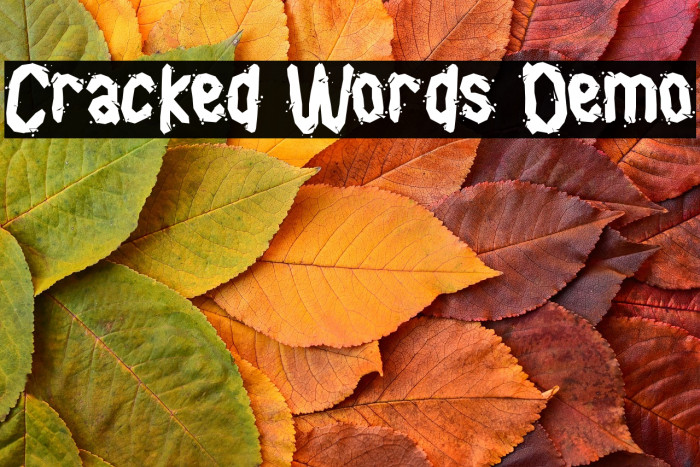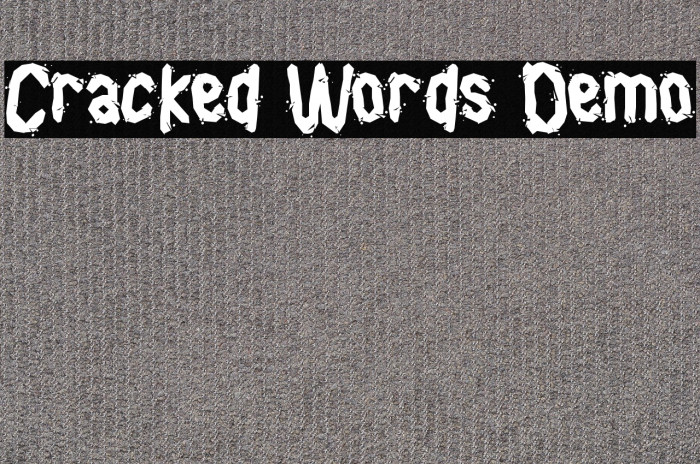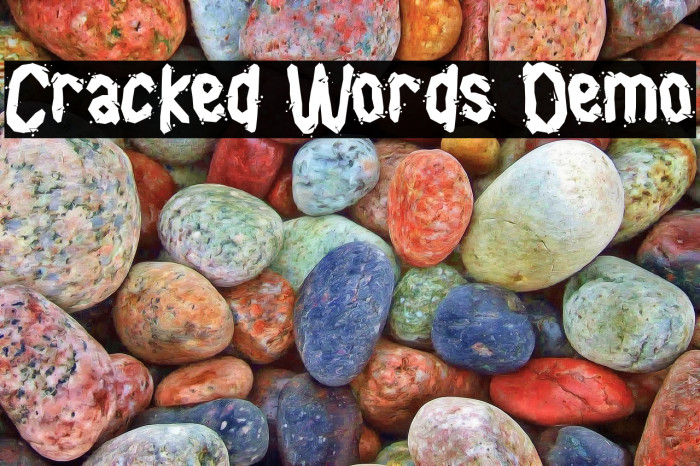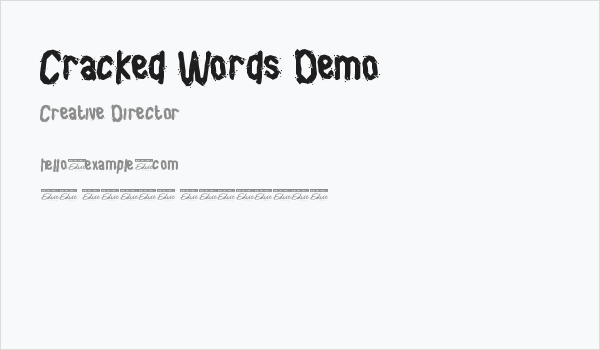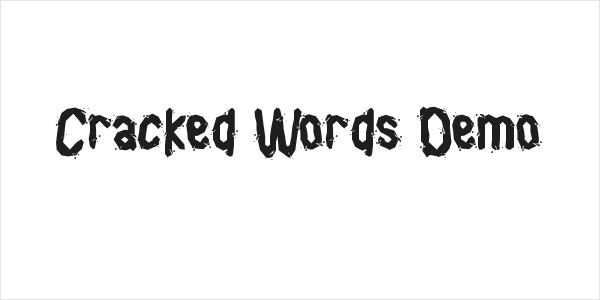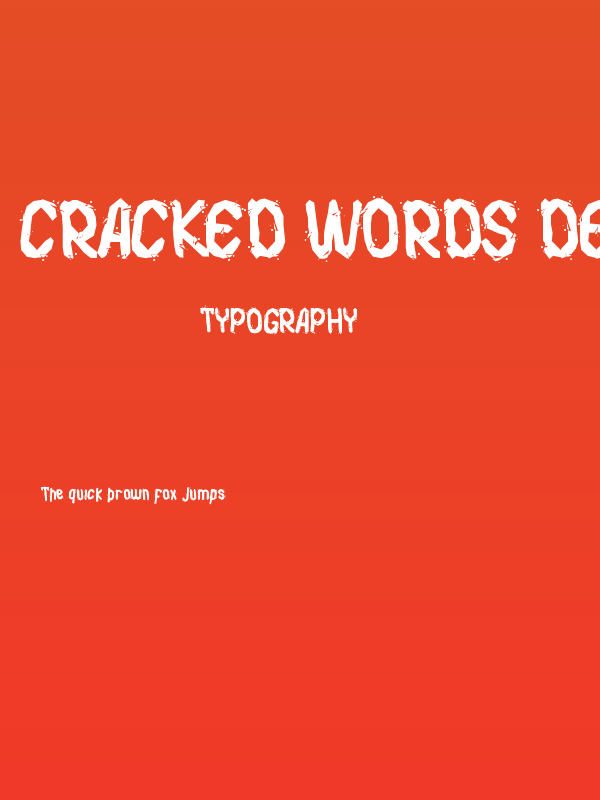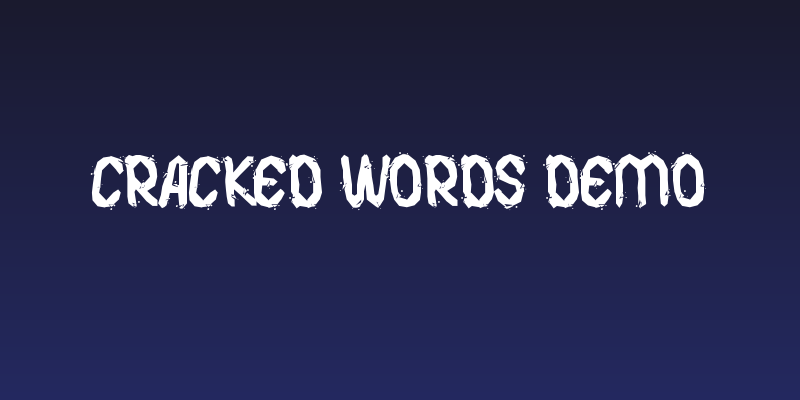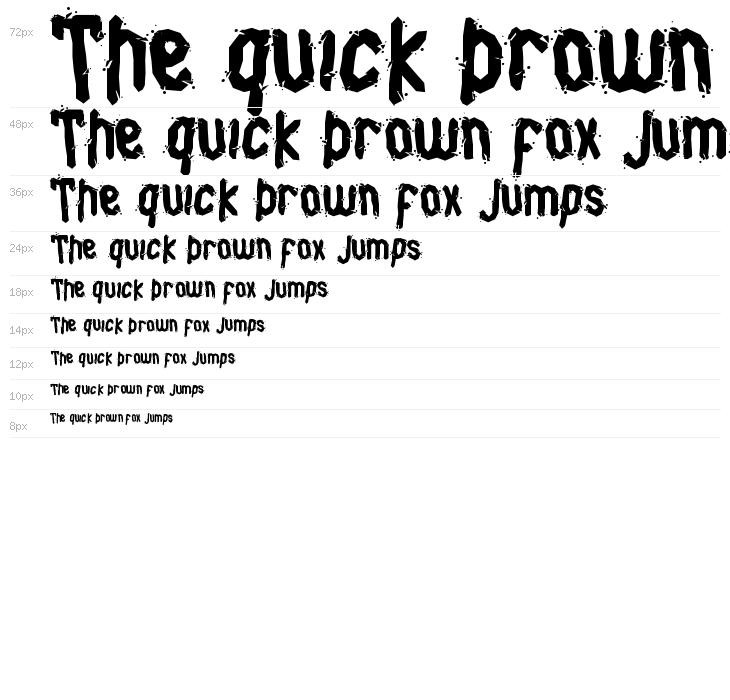
Cracked Words Demo Font
Cracked Words Demo Description
This font features a rugged, distressed appearance with a cracked and worn texture, giving it a unique and edgy look. The uppercase and lowercase letters are bold and angular, with irregular edges that mimic the appearance of cracked surfaces. The font's style is reminiscent of graffiti or urban street art, making it ideal for designs that require a gritty, rebellious aesthetic. The characters are well-defined, yet the distressed effect adds an element of unpredictability and dynamism. This font is perfect for projects that aim to convey a sense of raw energy and creativity.
Overall StyleUrban, Edgy, Distressed
Proposed ProjectsIdeal for album covers, posters, streetwear branding, and edgy graphic designs.